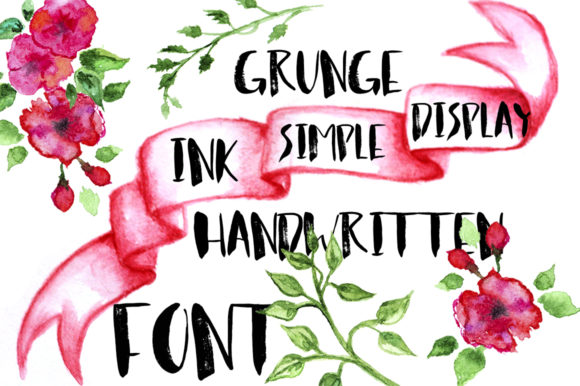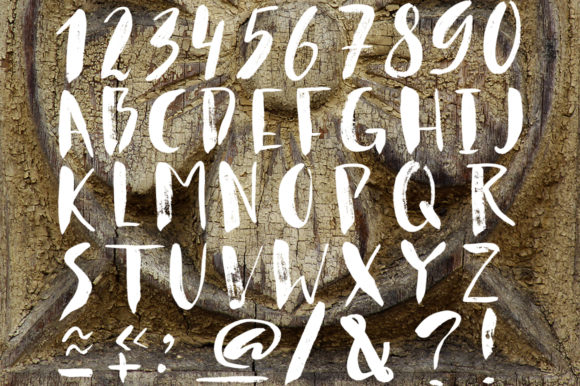
Simple Ink Font
About Simple Ink Font
Simple Ink is a sweet, whimsical and trendy brushed handwritten font. It is defined by smooth curves and is perfect for fashion branding or editorial designs. Add it confidently to your projects, and you will love the results.